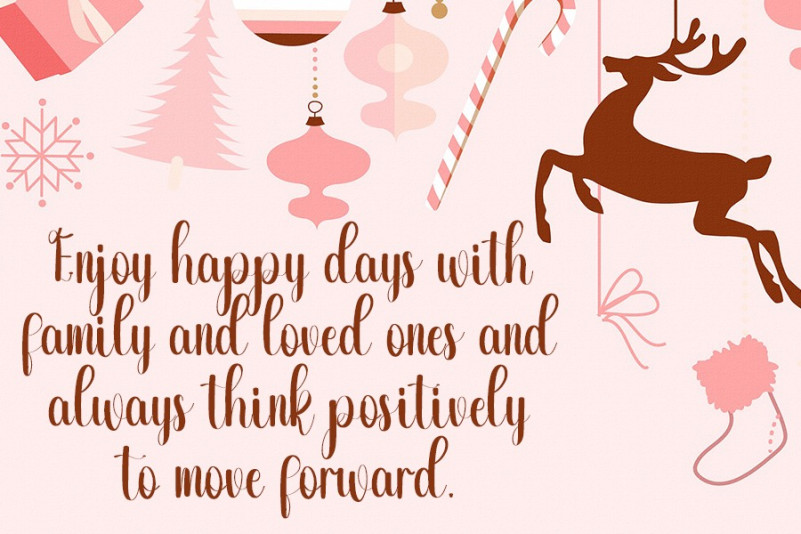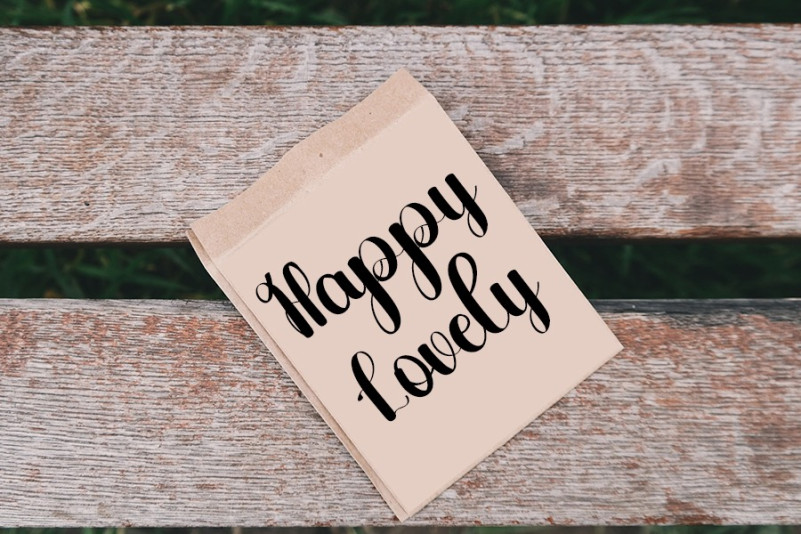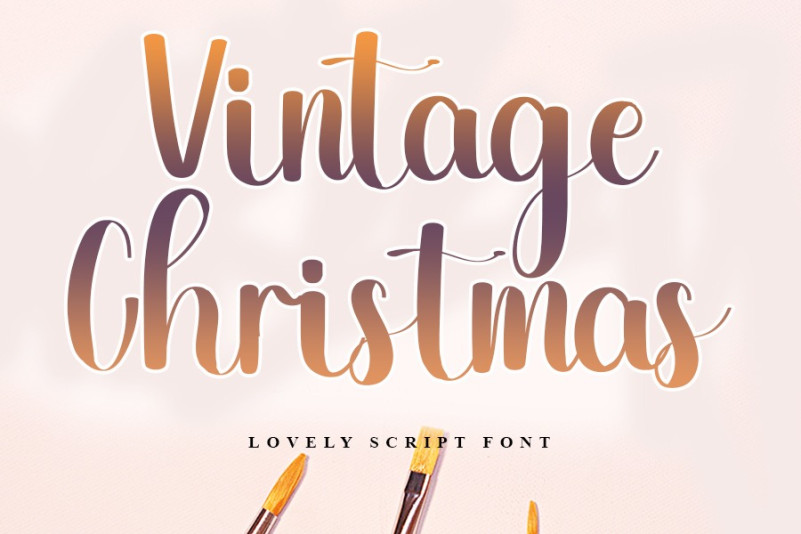
Vintage Christmas Font
Vintage Christmas Script Font. The font with a unique and elegant design style. A font suitable for all aspects of design and writing suitable for Instagram, quotes, clothing design, clothing, apparel, logo design, children’s clothing, t-shirts, weddings, gifts, parcels, youtube banners and more. By using this font your business will stand out in the market. Apart from that, this font is simple, modern style font, handwritten and easy to use with all your needs. With this latest font model, your brand and font business will move forward.